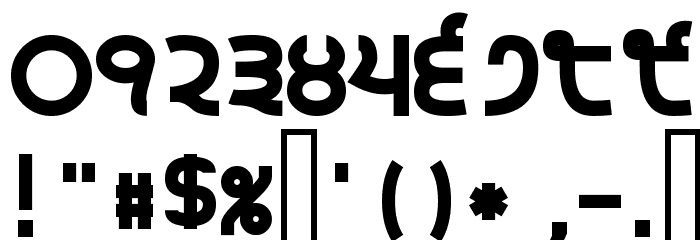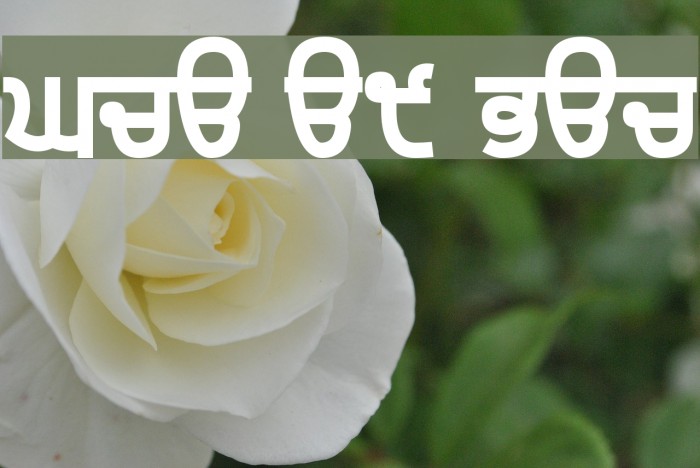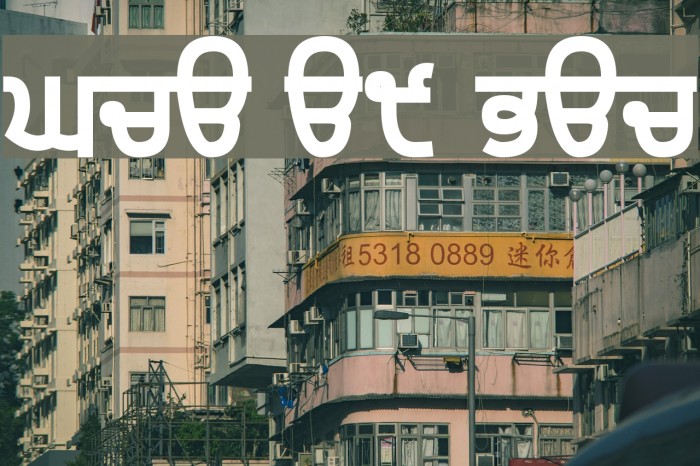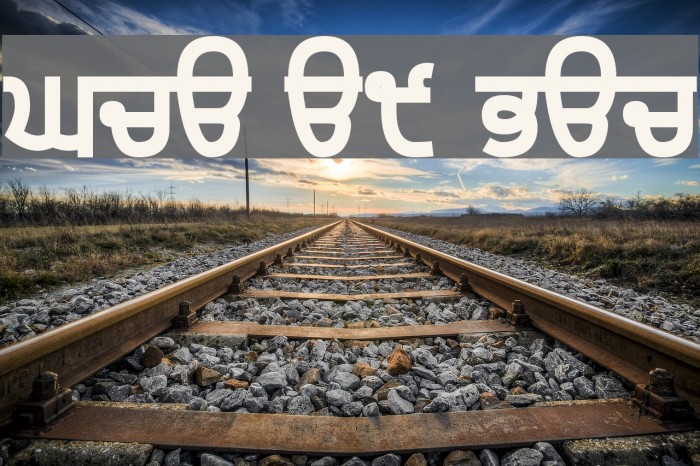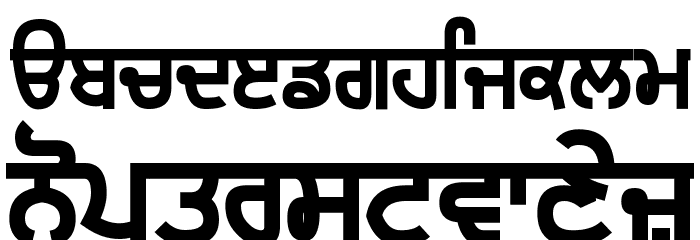
Gurvetica a9 Black Font
Gurvetica a9 Black Description
This font features a bold and striking design with thick strokes and a strong presence. The characters are crafted with a modern aesthetic, showcasing a geometric and structured form. The font includes a full set of uppercase and lowercase letters, numerals, and a variety of special characters. Its bold weight and high contrast make it ideal for impactful headlines and attention-grabbing designs. The spacing between characters is tight, enhancing its compact and powerful look.
| Proposed Projects | Ideal for headlines, posters, branding, and any design requiring a strong visual impact. |